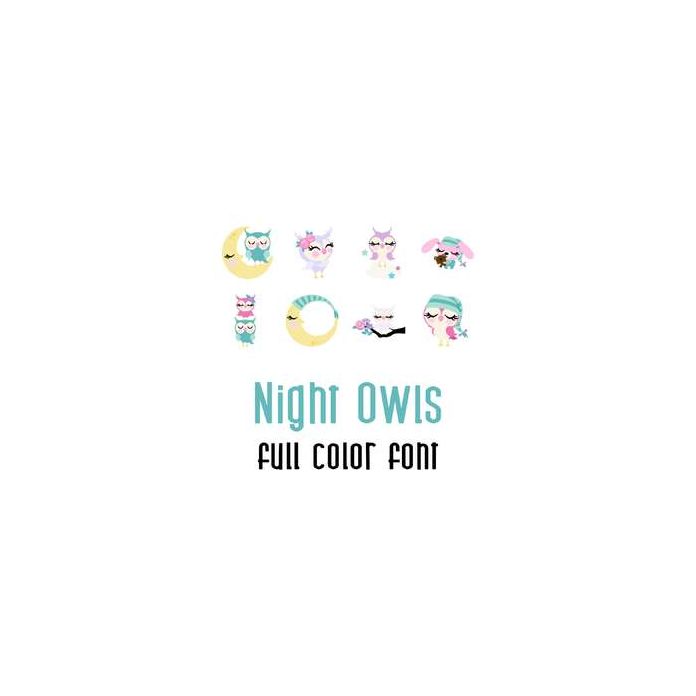
night owls full color font
This sweet Night Owls full color font is perfect for Nursery's, scrap booking, parties, nursery rooms, planner stickers and more!